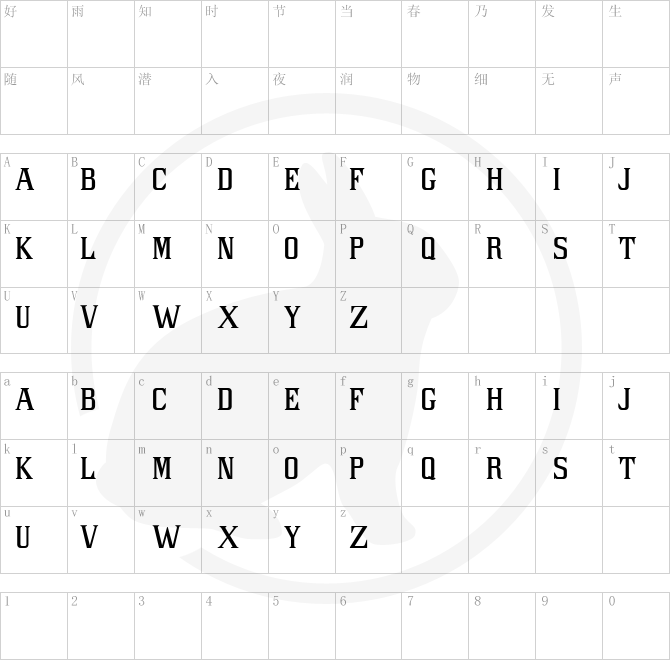
PAC-LIBERTAS.ttf is a very beautiful artistic font, PAC-LIBERTAS.ttf is widely used in the design and printing of various books and pictures,PAC-LIBERTAS.ttf has a strong visual impact,PAC-LIBERTAS.ttf is a commonly used font in newspapers, magazines and books, and is used in posters, e-commerce Poster design, store design, logo design, font design and other fields.PAC-LIBERTAS.